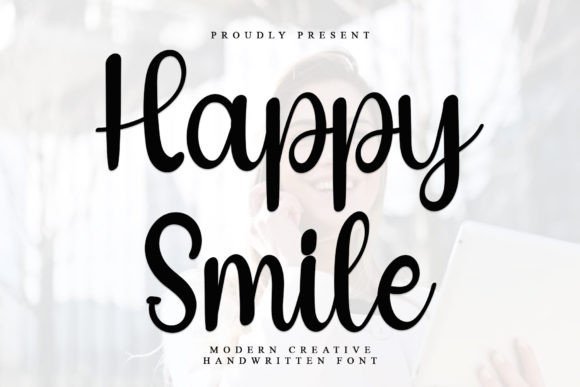
The Perfect Font to Match Your Happy Smile
Have you ever been brainstorming a creative project and suddenly felt a spark of inspiration? Maybe it was a beautiful sunset, a child’s laughter, or a heartfelt conversation that triggered the perfect idea. For designers, these moments are priceless. And sometimes, all it takes is the right font to bring that idea to life.
Enter the Happy Smile Font, a stylish and elegant writing font that exudes modern minimalism. With its beautiful, handwritten touch, this font is perfect for adding a personal and warm feel to your designs. Whether you’re creating wedding invitations, thank you cards, or business cards, the Happy Smile Font is sure to make a lasting impression.
Key Features of Happy Smile Font
- Unique Characteristics: This font features a playful, smile-inspired design with rounded edges and curved lines, making it perfect for creating friendly and approachable branding.
Happy Smile Font Review
I recently had the chance to work with the Happy Smile Font, and overall, it’s a cute and playful font that can add a touch of whimsy to your designs. ✨ One of the things that I appreciate about this font is its versatility – it can be used for both commercial and personal projects, and it’s suitable for a wide range of designs, from children’s books to advertisements.
Another advantage of the Happy Smile Font is its legibility. Even at smaller font sizes, the characters remain clear and easy to read, making it an excellent choice for body text or headings. ✨ The font also comes with a range of ligatures and alternates, which can add a touch of personality to your designs.
- ⚠️ Limited character set – the font doesn’t include all the characters in the standard Unicode range, which may cause issues if you need to use it for international projects.
- ⚠️ Not suitable for formal or professional designs – the playful nature of the font may not be suitable for more serious or corporate projects.
Overall, the Happy Smile Font is a fun and engaging font that can add a touch of personality to your designs. While it has some limitations, it’s a great choice for projects that require a playful and approachable tone. ✨
The Happy Smile Font is ideal for creating playful and friendly designs, such as children’s party invitations, social media graphics, and product packaging. To get the most out of it, use it in combination with bright and cheerful colors and playful graphics. Experiment with different font sizes and styles to add emphasis and create visual interest.